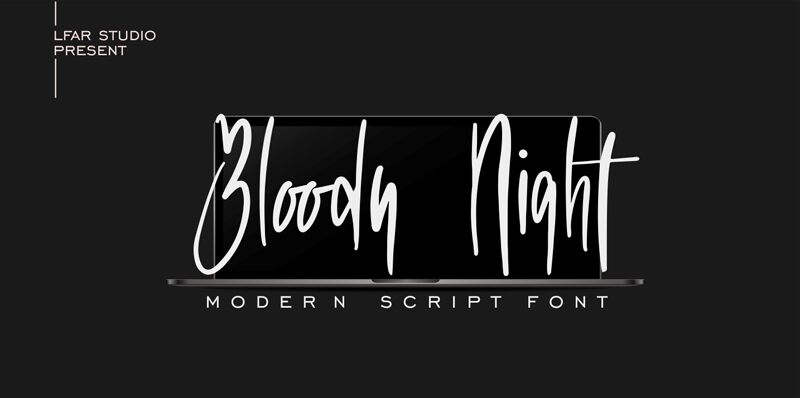
Bloody Night font by Lalan Farlan is a free handwritten font with a modern script style. The font holds dramatic visual characteristics displayed by each letter's extraordinary shapes. Although it still appears rather chaotic, a fluid writing optic connects the whole font. Its energetic style makes it adaptable to contemporary applications in event posters, promotional ads, or even newspapers.
While commercial branding demands might not be for such a dramatic typography style, it is not likely that Bloody Night would make heading text rather interesting both online and in print. Use it further in product packaging, merchandise print, wallpapers, editorial design, business cards, websites, or gaming.